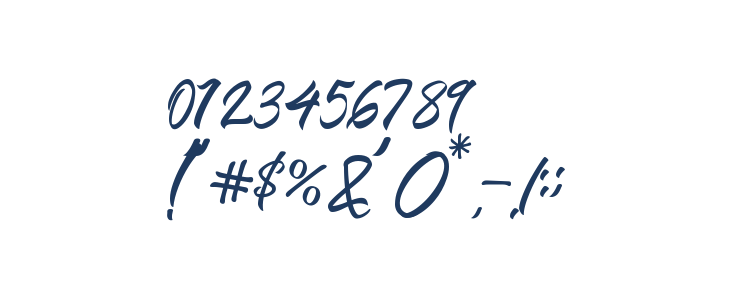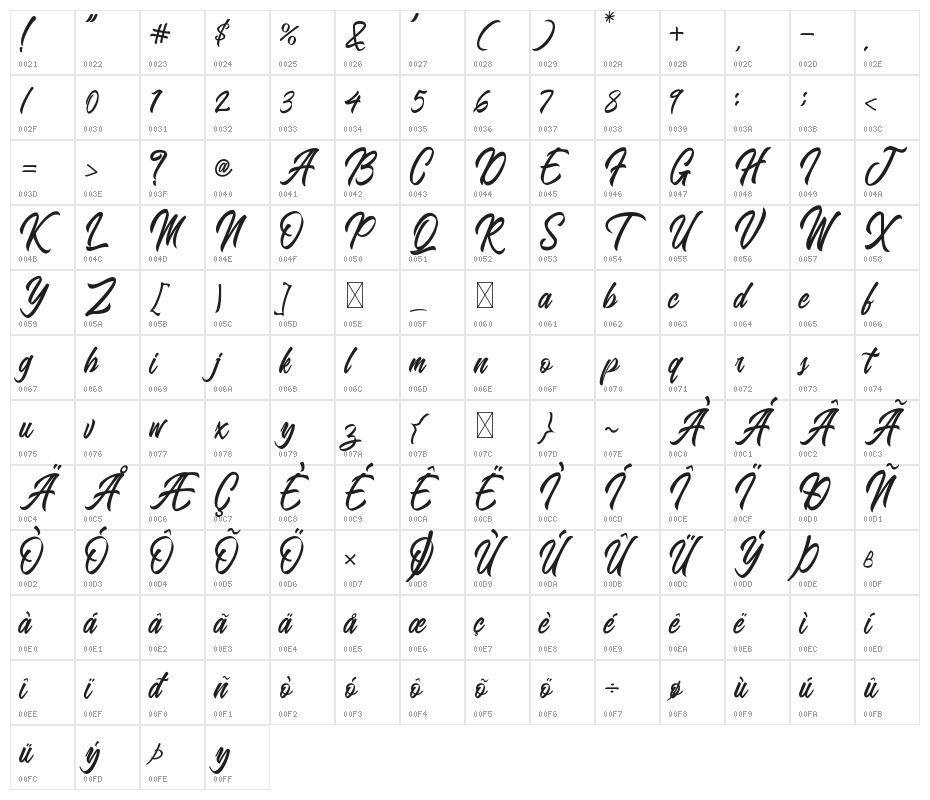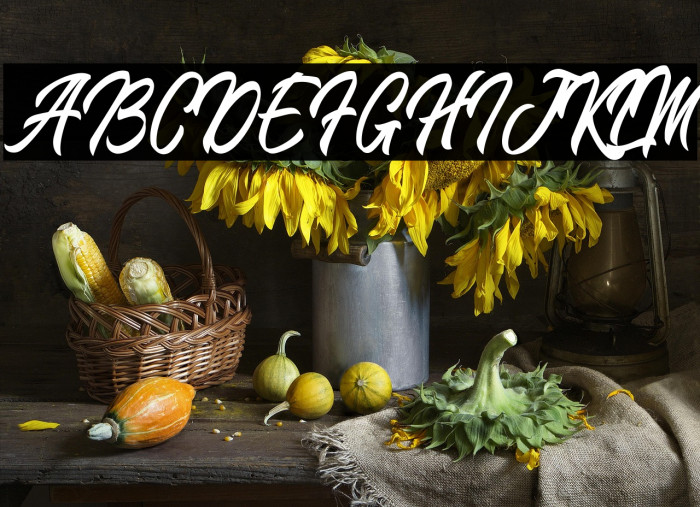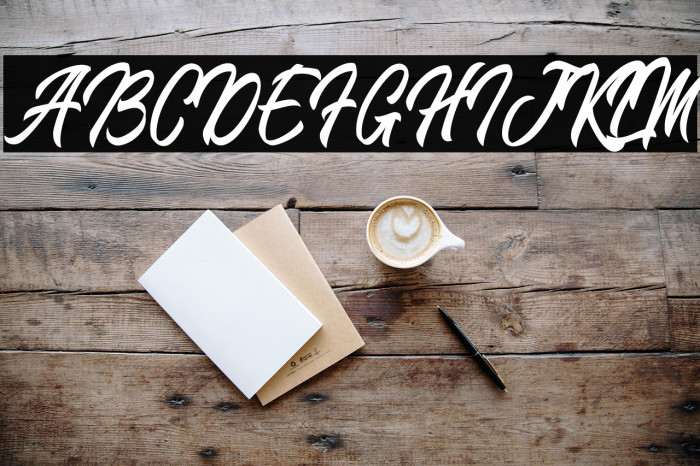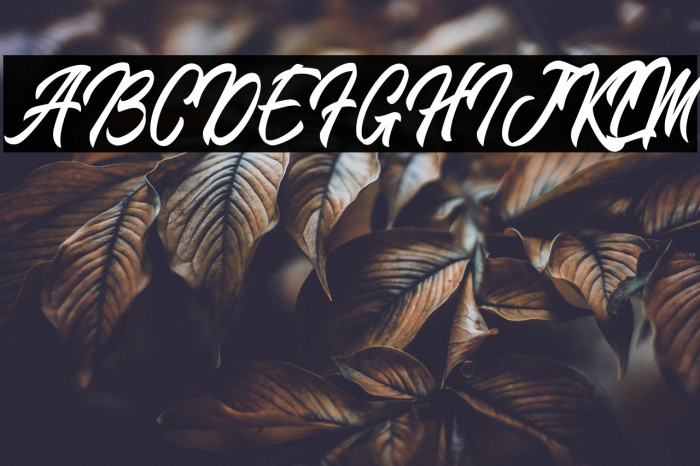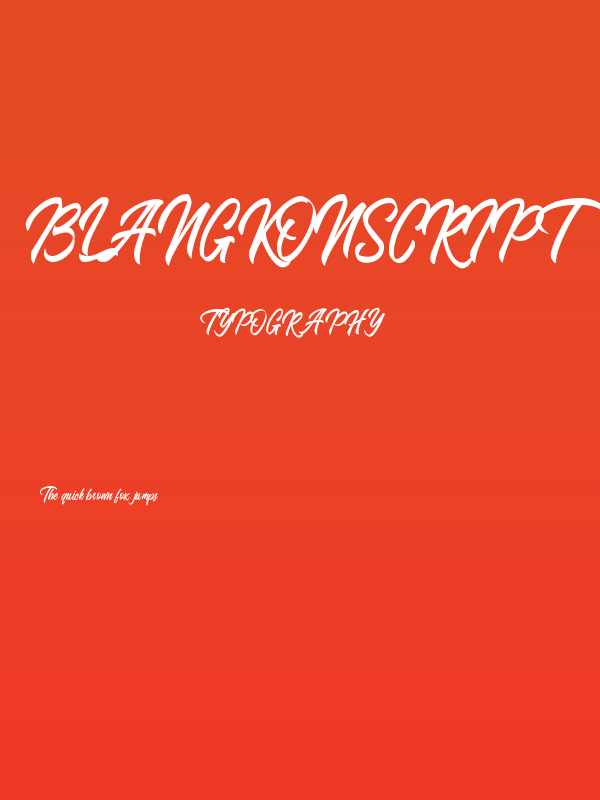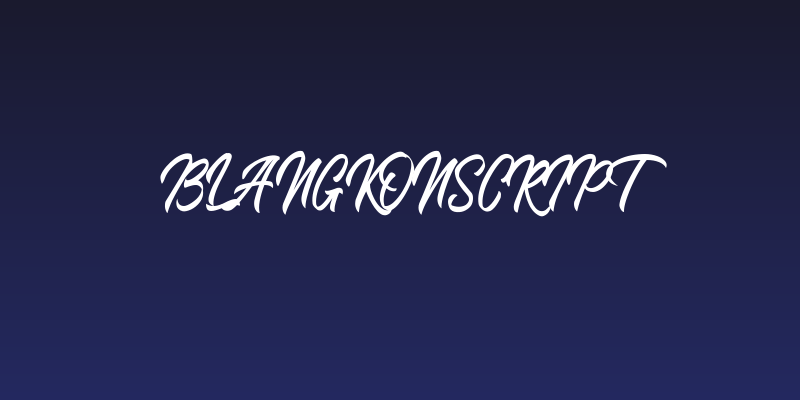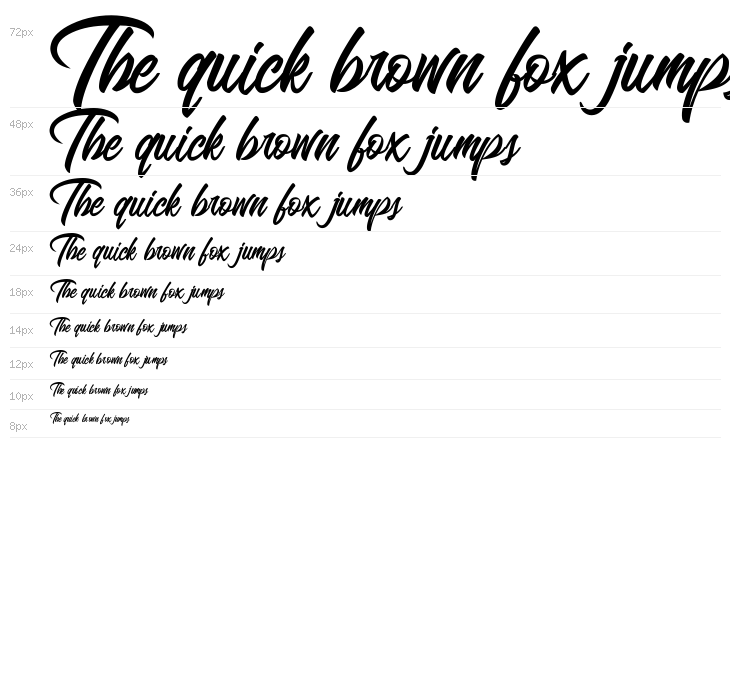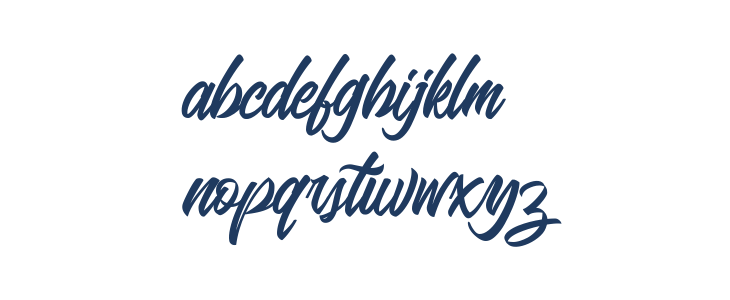
BlangkonScript Font
BlangkonScript Description
This font exudes a dynamic and expressive style, characterized by its fluid and cursive script. The letters are interconnected with smooth, flowing strokes that create a sense of movement and elegance. The uppercase letters are bold and prominent, while the lowercase letters maintain a consistent flow, enhancing readability. The numerals and special characters are crafted with the same attention to detail, ensuring a cohesive look throughout. This font is ideal for projects that require a personal touch or a sense of sophistication.